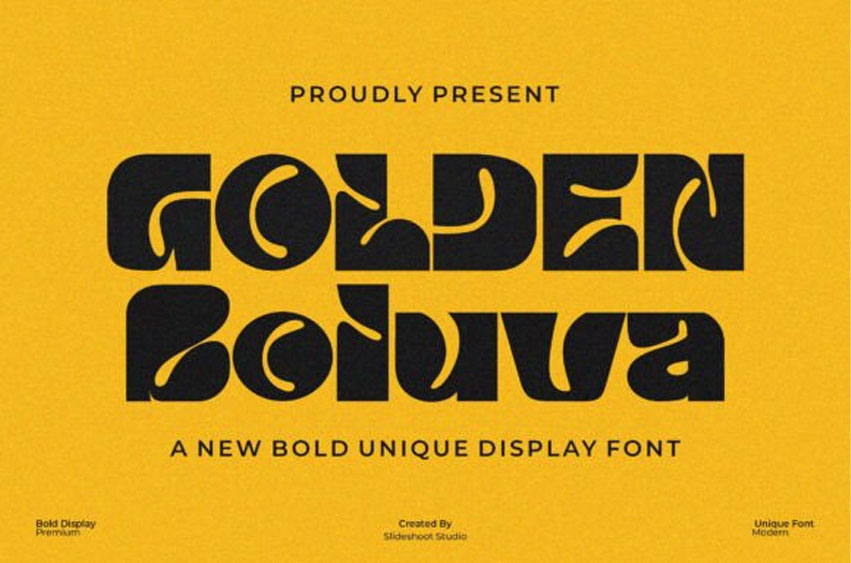
Golden Boluva Font
Golden Boluva Font is an elegant, modern display font. Its clean and minimalistic style works beautifully on its own for logos, headlines, posters, packaging, and more!
With three different weights to choose from, your options for creating unique and versatile designs are endless. Have fun and unleash your creativity—your imagination is your only limit!